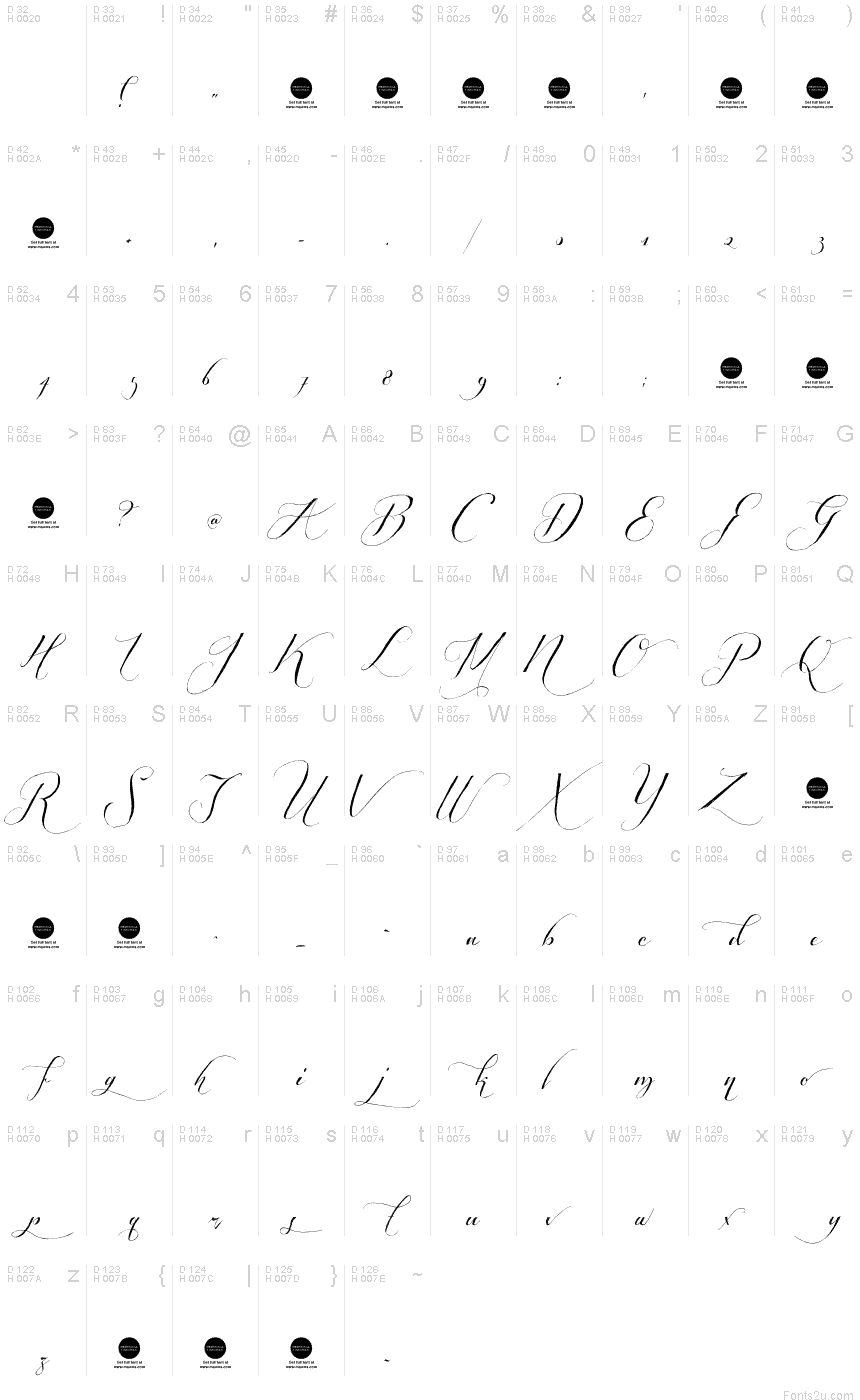
Shipped Goods 2 by Måns Grebäck is a free calligraphic script with dramatic flourishes and pronounced thick-to-thin strokes. Tall, sweeping capitals stretch far beyond the main letter shapes, and the finer connecting lines give the writing an ornate, formal pace.
Romance and ceremony are its most natural subjects, making it suitable for wedding invitations, anniversary stationery, and event programs. It also suits luxury packaging and fashion branding, where the broad loops can become part of a decorative emblem. The elaborate penmanship links these uses through a shared sense of occasion and old-world elegance.